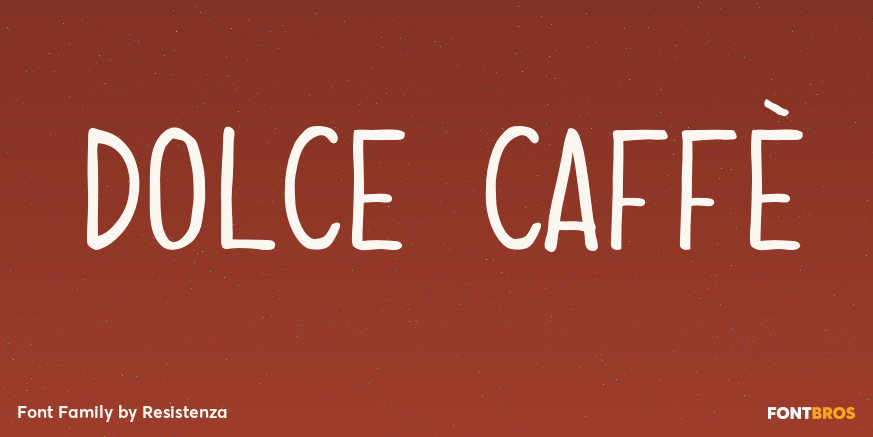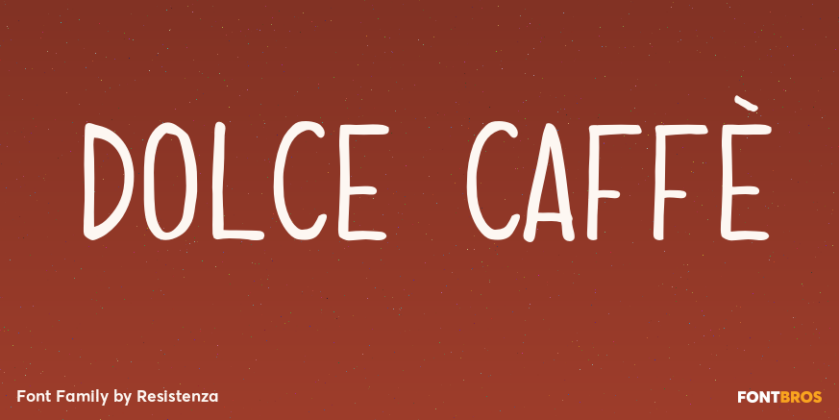
Dolce Caffè
About Dolce Caffè
Dolce Caffe is a pretty hand-written font, designed in 2011, that is very legible and high in style and carefully constructed all-uppercase letters. It was totally inspired by hand-written chalkboards in Berlin, a city that I love. All the glyphs are…